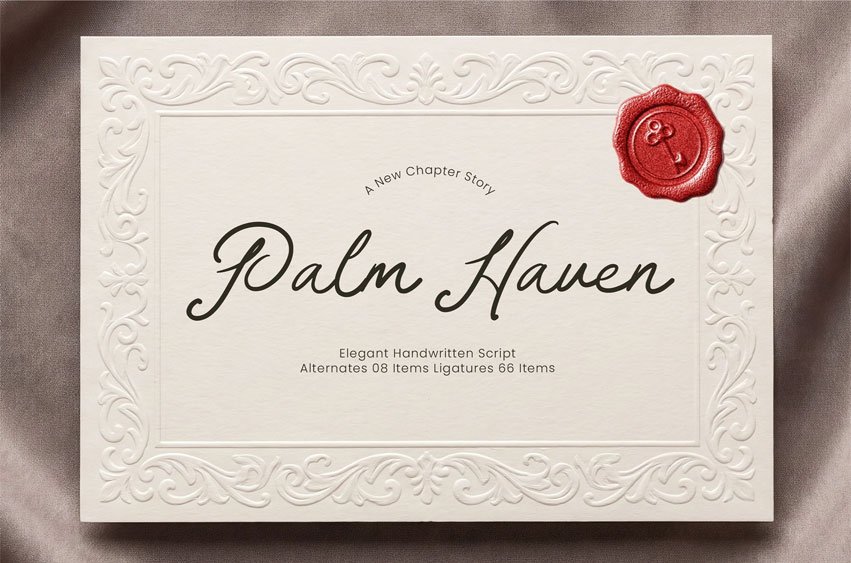
Palm Haven Font is an elegant handwritten script font designed to capture the beauty, sophistication, and timeless charm of natural handwriting. Inspired by handwritten letters, luxury stationery, wedding celebrations, and refined lifestyle aesthetics, Palm Haven delivers a graceful and expressive personality while maintaining a clean and polished handwritten style.
With flowing strokes, delicate curves, and natural letter connections, this font is perfect for branding, packaging design, wedding invitations, greeting cards, beauty products, boutique businesses, lifestyle visuals, social media content, stationery, and creative editorial layouts that require a sophisticated and personal touch.
Palm Haven balances elegant script artistry with natural handwritten flow, making it versatile for both decorative and professional creative projects.
- ✨ Elegant Handwritten Script Style – Ideal for branding, packaging, invitations, stationery, luxury products, and lifestyle visuals.
- ✨ Rich Stylistic Options – Includes extensive ligatures and alternates for expressive and unique typography.
- ✨ Graceful & Romantic Character – Delicate handwritten rhythm with refined strokes and timeless elegance.
- 🔡 OpenType Features: 66 Ligatures & 8 Alternates
Palm Haven is created for designers who want an elegant handwritten script font that feels graceful, sophisticated, and naturally expressive—perfect for wedding invitations, luxury branding, beauty packaging, stationery, boutique businesses, lifestyle projects, and timeless visual storytelling.